Have I mentioned that I LOVE fonts! They offer so many possibilities for creativity and can be huge time savers. In my first blog on fonts, I showed you where to find fonts, how to download them and how to use fonts without installing them. My second blog was all about Dingbat fonts, those fabulous fonts that are images instead of letters. Today, I want to encourage you to look at alphabet fonts a bit differently and find the amazing potential for designs hidden there.
If you are like me, you probably don’t often look at the bracket, tilde and asterisk keys of a font. And yet, there are so many possibilities to be found in those often overlooked characters. Type out a string of characters like the ones below and then look at them in different fonts. It helps if you duplicate the same set of characters several times. Then look through your fonts and you will start to see characters that are the seeds of potential design.
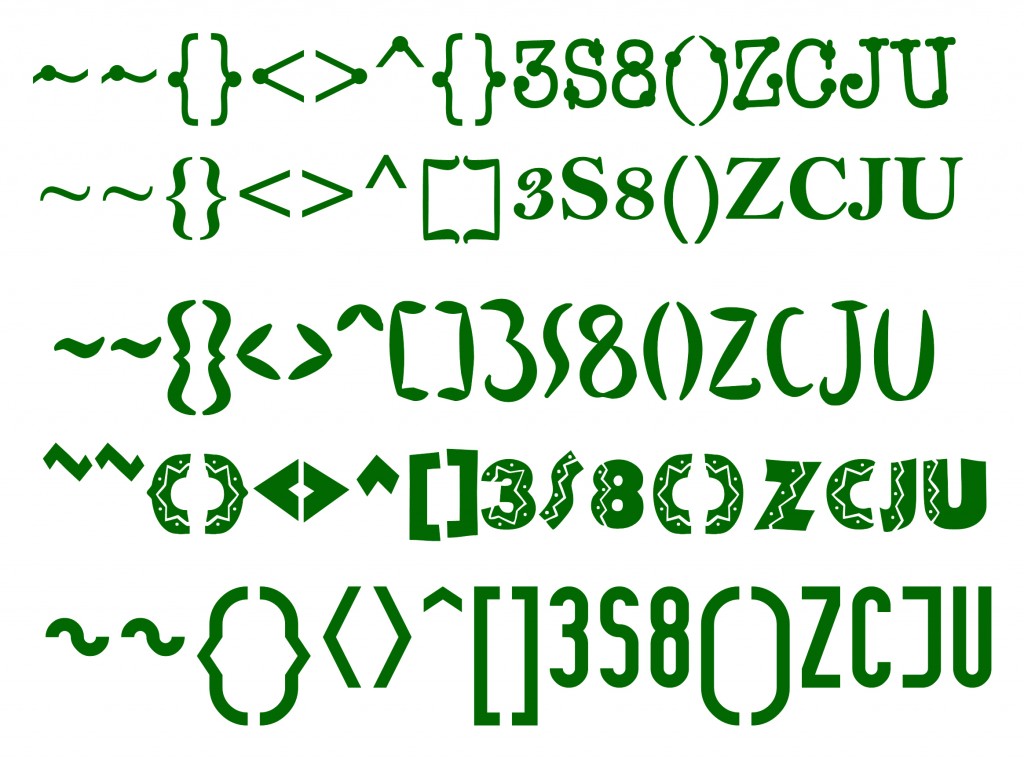
You can multiply tilde characters to make great borders. Brackets make awesome frames for photos or enlarge the design to make an entire page mat. The letters S and J can be combined to make swirl designs. The number 8 and the caret (^) can be the start of fun flowers. Be sure to convert your text to path and then start manipulating the character. Use the multiply function to create a string of tildes. The Duplicate and Rotate functions will help you create frames with brackets or parentheses. Also, don’t forget to use WYSIWYG to join those letters and characters together once you have them in place.
Once you see the hidden potential you will want to go on a treasure hunt to see how many designs you can come up with! See what I came up with in just a short amount of time. (As I look at this, I can see several more! Can you?)